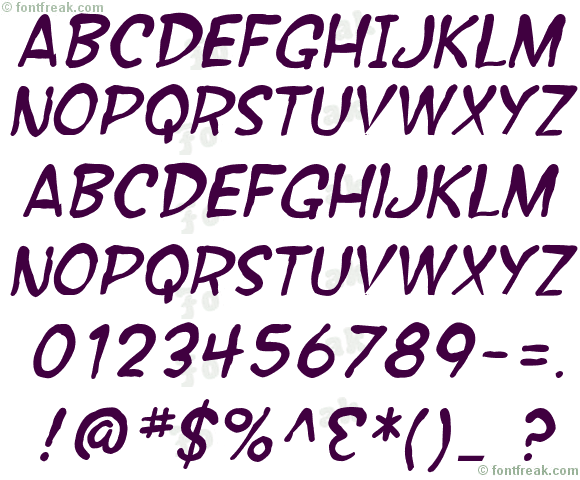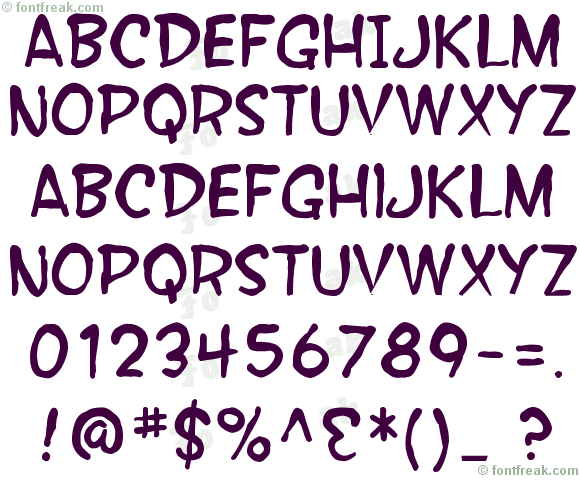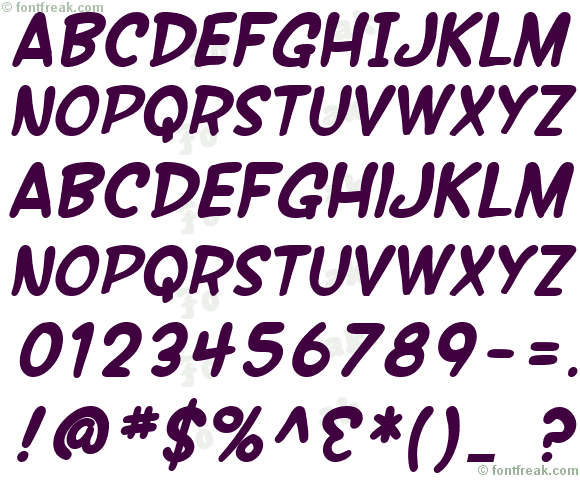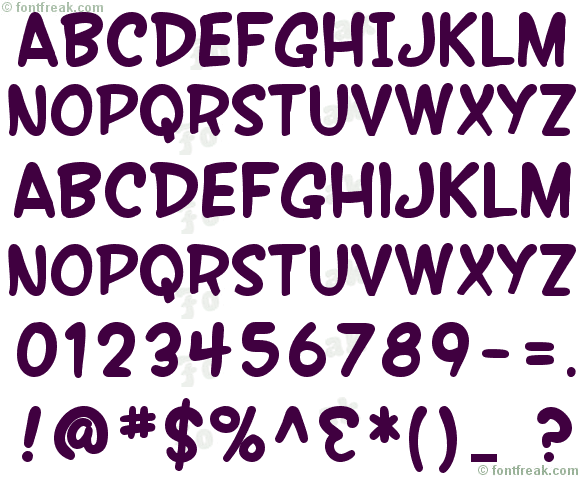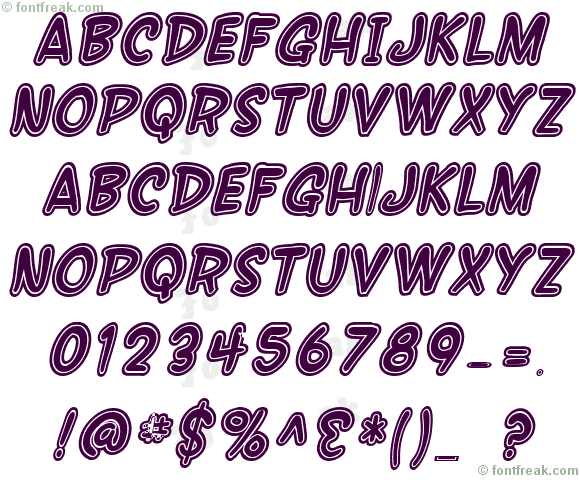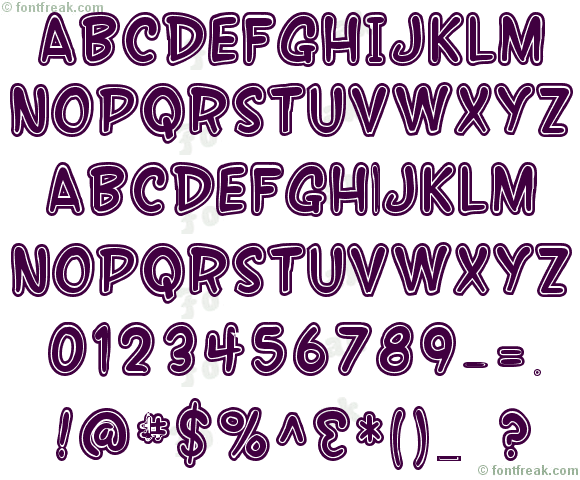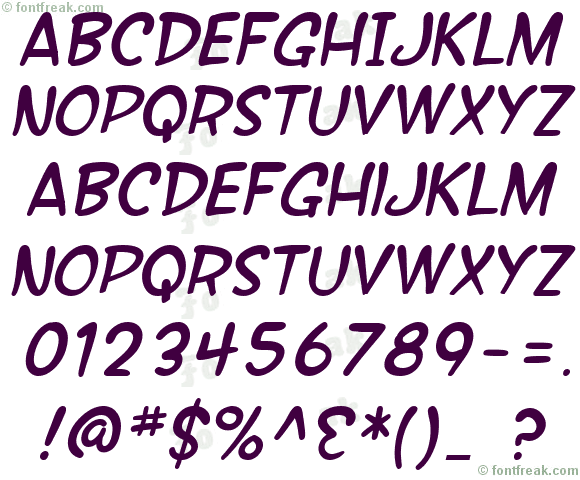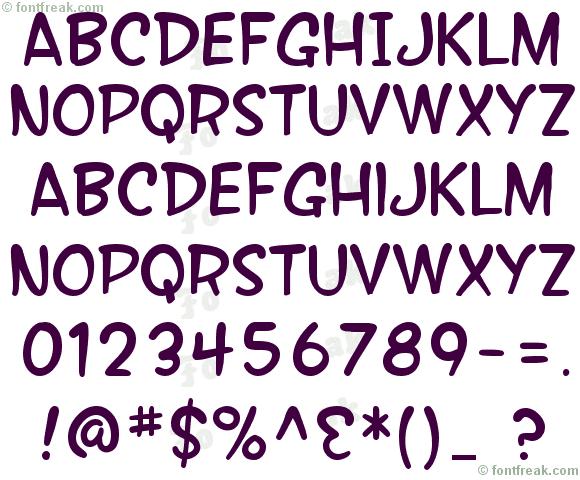
SF Wonder Comic Bold Italic
SF Wonder Comic Blotch Italic
SF Wonder Comic Bold
SF Wonder Comic Italic
SF Wonder Comic Blotch
SF Wonder Comic Inline
SF Wonder Comic
SF Wonder Comic Inline Italic
Wonder Comic, created by Shyfonts Type Foundry, is an engaging display font that captures the whimsical essence of comic book art. This freeware font is characterized by its bold, playful strokes and a unique inline design, making it a standout choice for projects that demand a fun, eye-catching typographic style. The letters are crafted with a medium stroke weight that ensures legibility while maintaining a lively character. The contrast between thick and thin lines adds depth, and the overall letter spacing is generous, allowing for a dynamic yet cohesive look.
The Wonder Comic font is ideal for various creative applications. It shines brightly in children's book covers, where its playful nature can attract young readers. Additionally, it is perfect for movie posters, particularly in the action or adventure genres, where a comic-inspired aesthetic can evoke excitement. Restaurant menus that cater to a family-friendly atmosphere can benefit from its approachable style, while social media graphics aimed at a youthful audience will find it a charming addition. Graphic designers and content creators will appreciate its versatility, making it suitable for both digital and print media.